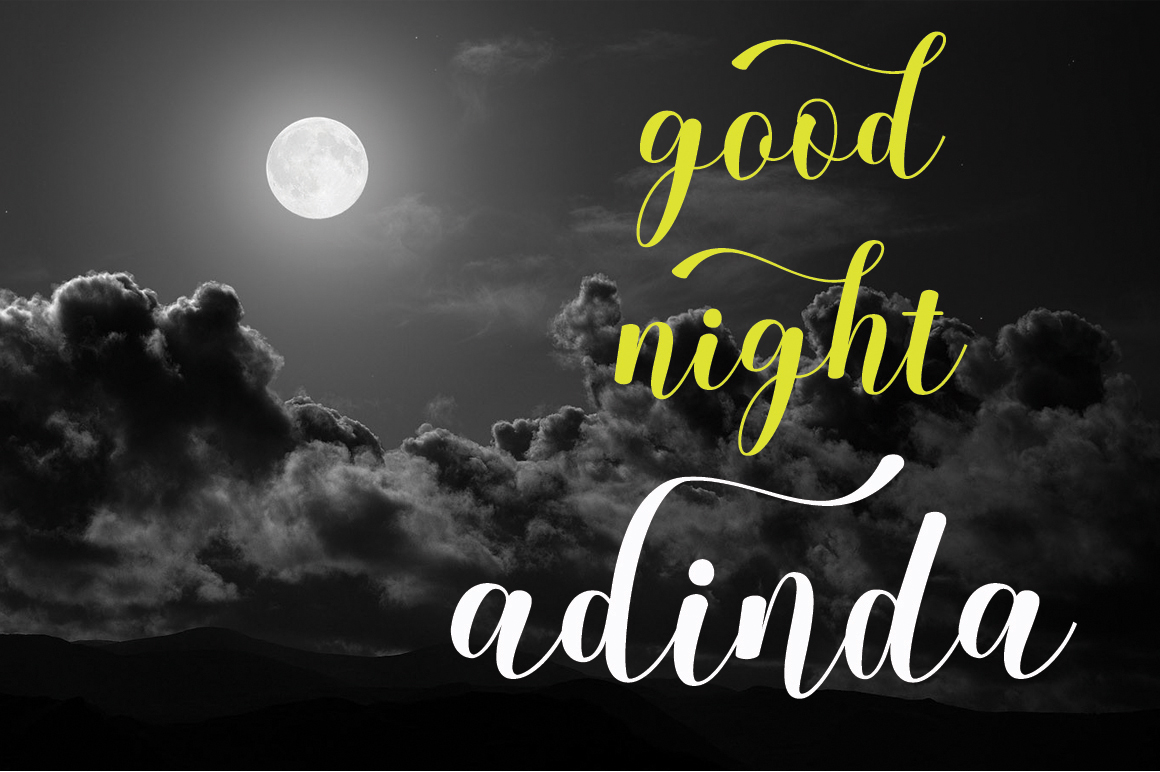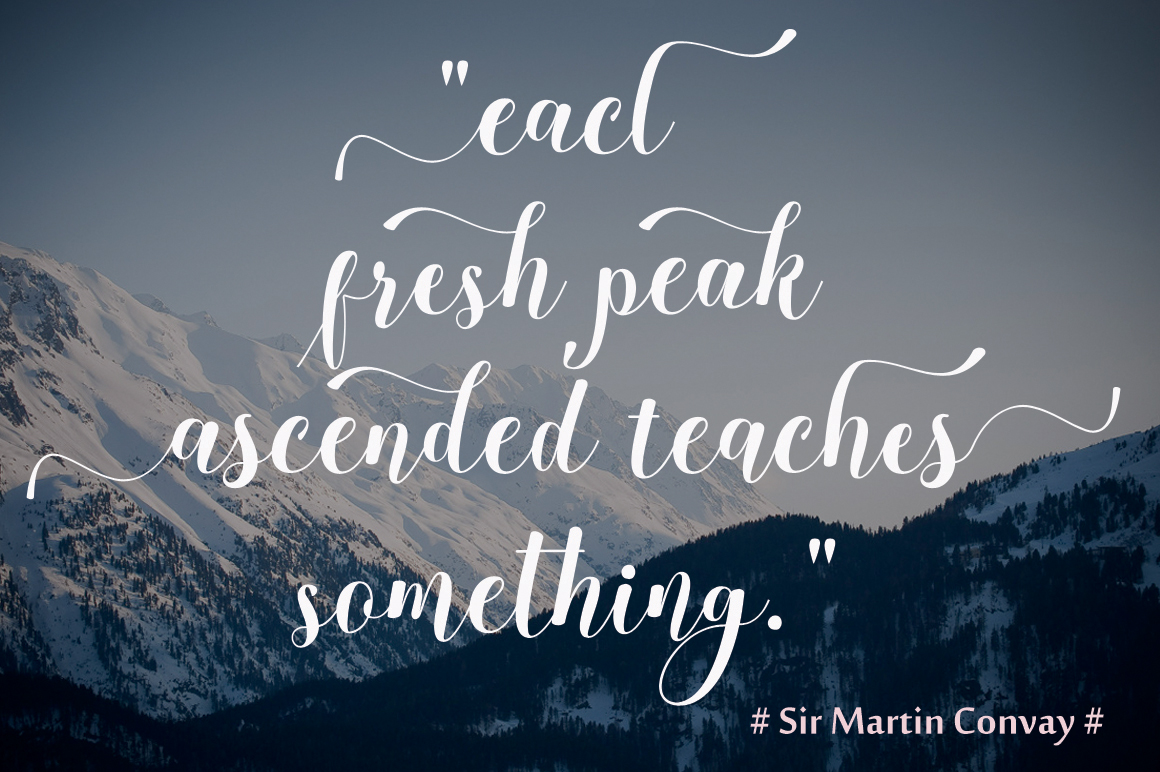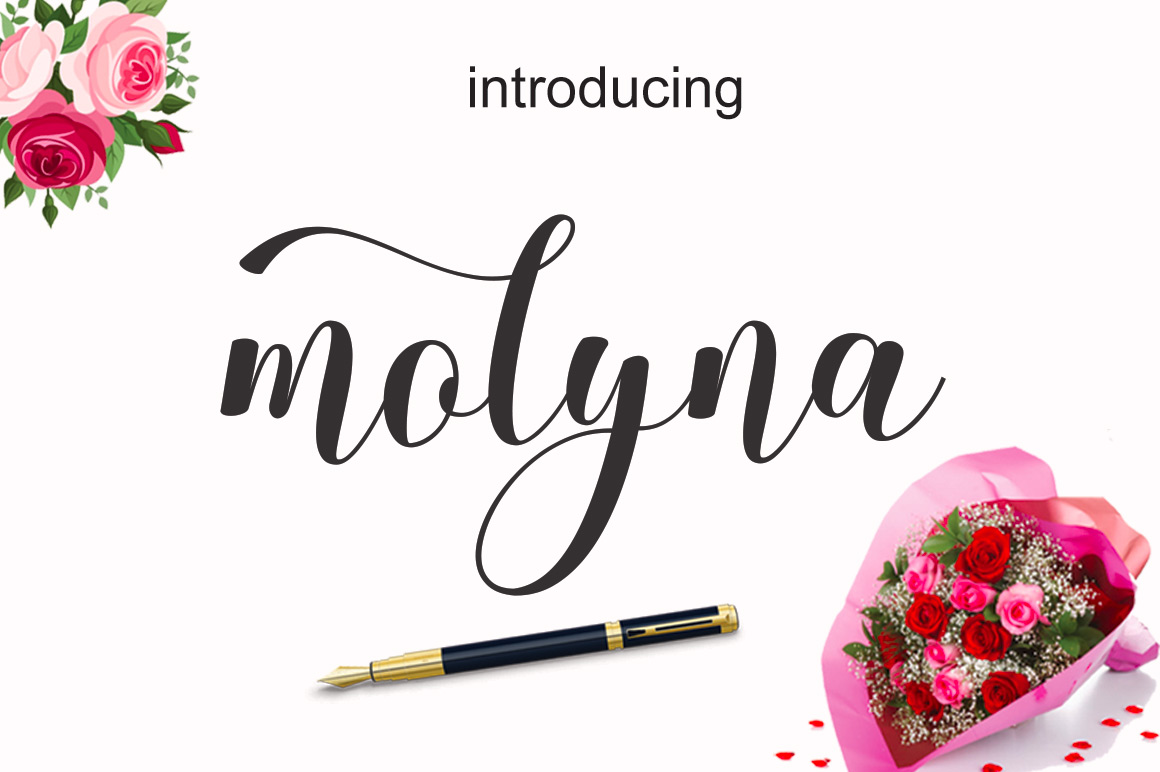
Molyna Font
Molyna is a stylish calligraphy font that features a varying baseline. From thick to thin Molyna is a great to work with for a range of different design and craft work.